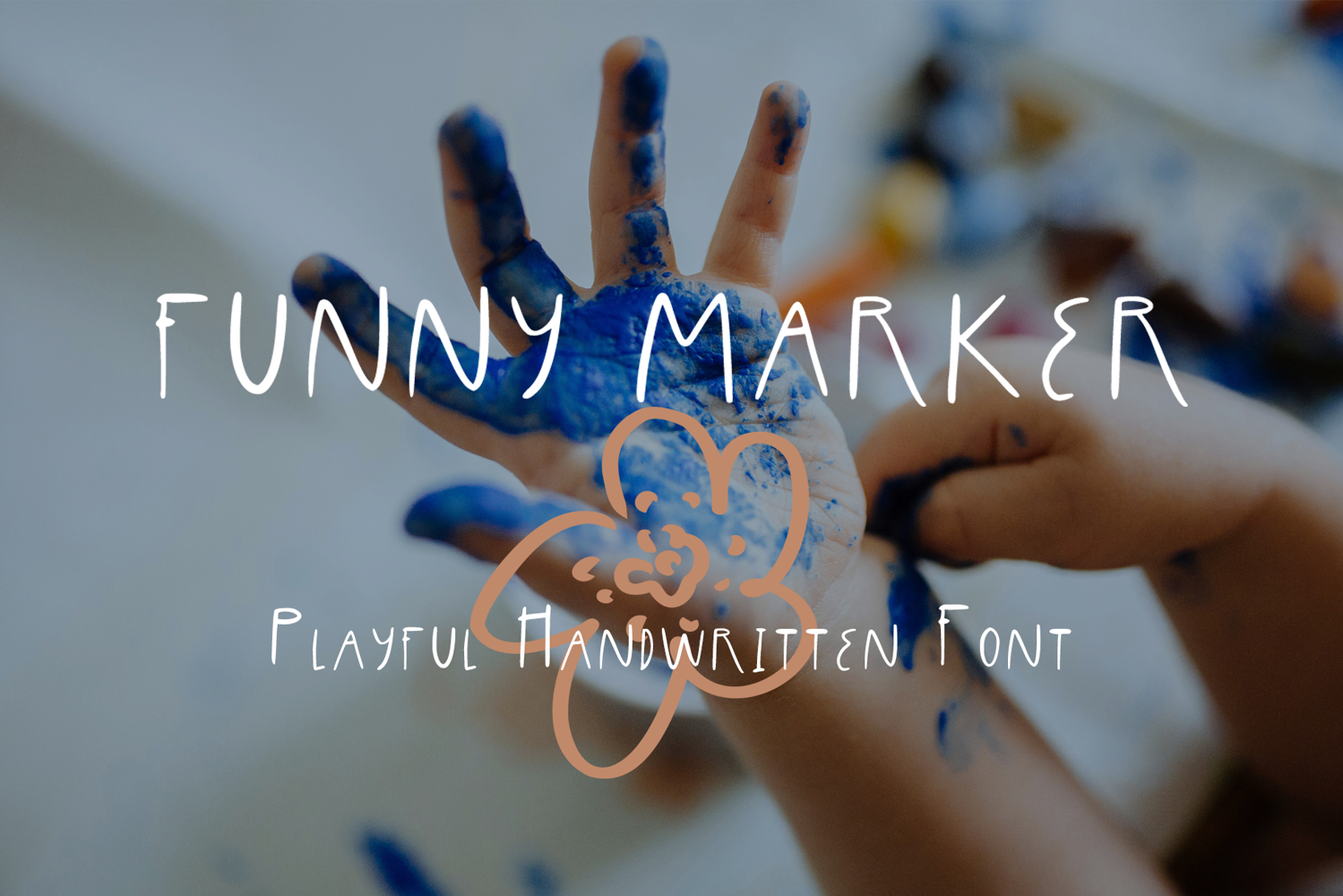
Funny Marker Playful Handwritten Font
Funny marker-Regular
Funny Marker is a playful handwritten font that captures the carefree charm of marker-drawn letters.
Its bouncy, uneven strokes bring warmth and personality to your projects — perfect for kids designs, cards, posters, and creative crafts.
This font is full of joyful energy and works beautifully for any project that needs a friendly, handmade look.
Children’s books, greeting cards, posters, stickers, invitations, branding, and DIY projects.
Bring happiness and playfulness to your next design with Funny Marker!